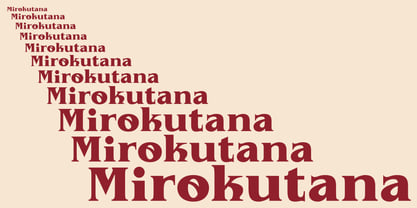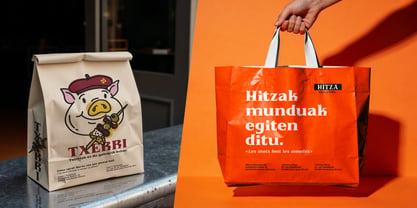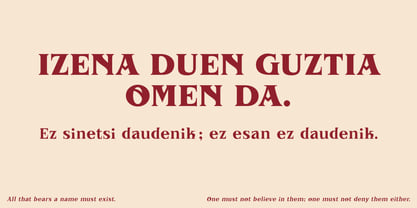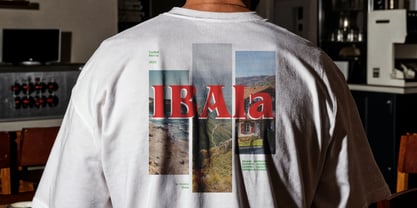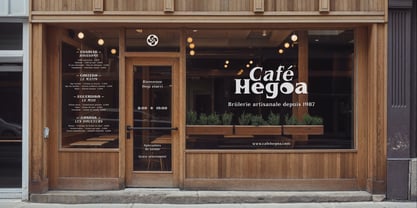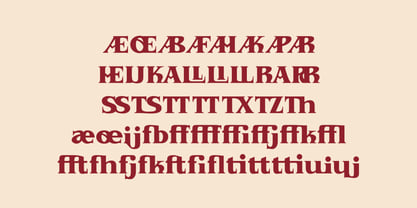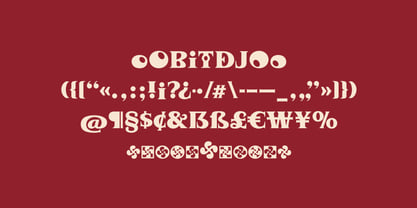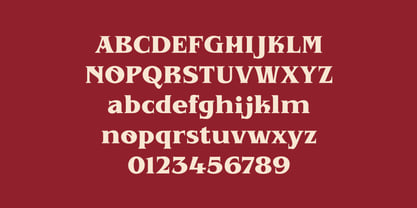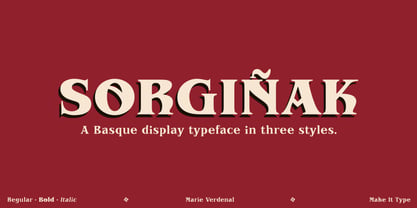
Sorgiñak
Sorgiñak is a captivating display typeface inspired by traditional Basque lettering, commonly seen on door lintels, funerary steles, and vibrant storefronts throughout the Basque Country.
With its broad serifs, tall x-height, and subtle gothic influences, Sorgiñak adds a rich historical depth to editorial headlines, visual identities, book covers, and signage. This versatile font family includes three distinct styles: Regular, Bold, and Italic, each featuring an extensive character set that incorporates Basque-specific glyphs, discretionary ligatures (TX, TT, TZ, SS, RR…), fractions, superscripts, and localized forms for nine languages.
Sorgiñak is perfect for projects that require a strong cultural identity, deeply rooted in a powerful heritage, making it an excellent choice for branding, web design, and editorial applications.